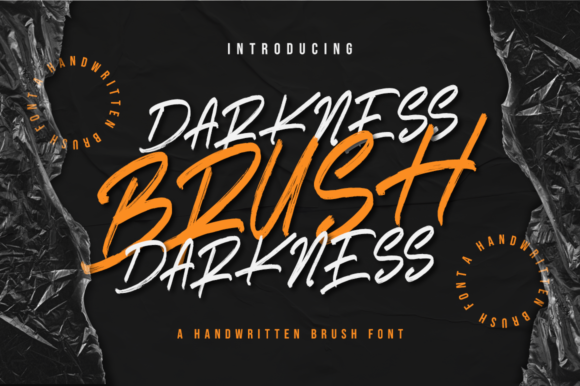
Journey into the realm of visual expression with Darkness Brush Font, a captivating display font that ignites creativity and propels your designs to new heights. This contemporary brushed masterpiece is not just a collection of letters and symbols; it's a gateway to a world where urban grit meets artistic flair.
As you embark on your creative journey with Darkness Brush, discover its innate ability to adapt to a myriad of urban or street-inspired designs. Let your imagination run wild as you craft logos that exude an edgy charm, packaging that demands attention, invitations that intrigue, quotes that resonate, t-shirts that make a statement, labels that command respect, posters that captivate, and logos that leave an indelible mark.
The versatility of Darkness Brush knows no bounds, making it the perfect companion for any project that calls for a touch of urban sophistication. Unleash your inner artist and let Darkness Brush transform your designs into expressions of individuality and style.
Immerse yourself in the world of Darkness Brush and uncover a font that not only enhances your designs but also ignites your passion for visual storytelling. As you delve into its depths, you'll discover a font that breathes life into your creations, captivating audiences with its bold strokes and urban allure.
Darkness Brush is more than just a font; it's an experience. It's a journey of self-expression and artistic exploration that will leave you breathless. Embrace the darkness and let your creativity flourish.